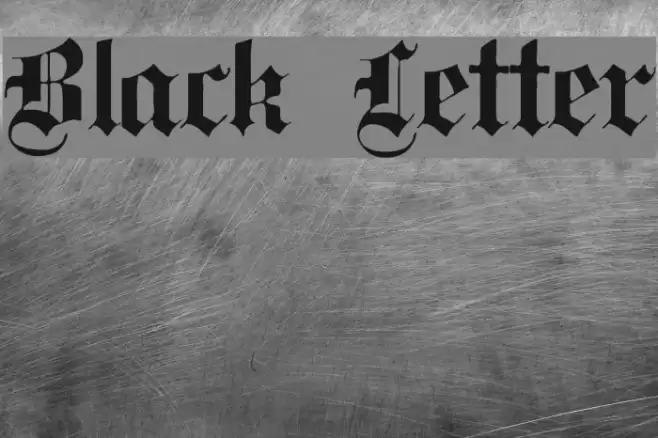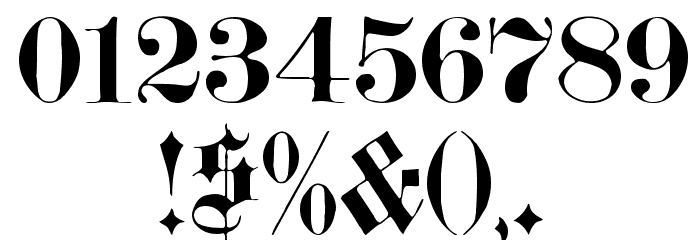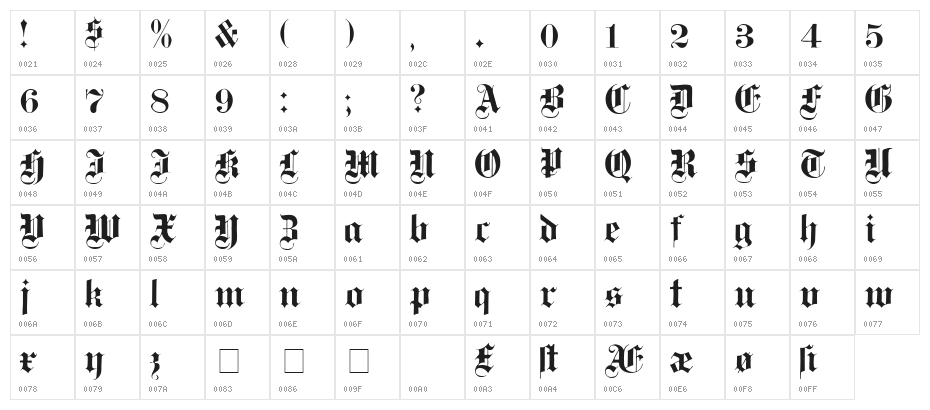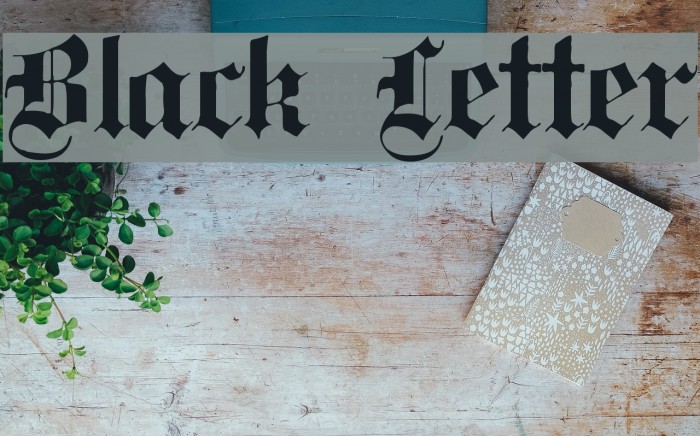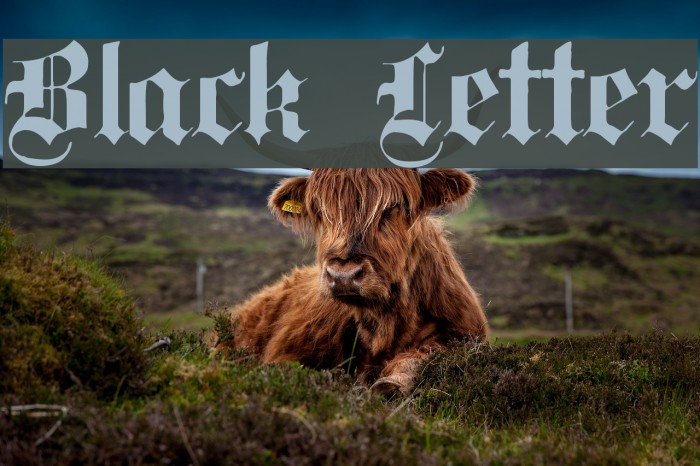
Black Letter Font
Black Letter Description
This font features a traditional blackletter style, characterized by its ornate and intricate design. The letters are bold and have a distinct medieval appearance, with sharp angles and elaborate curves. The uppercase letters are particularly decorative, while the lowercase letters maintain a consistent style with slightly less embellishment. The numbers and special characters follow the same aesthetic, providing a cohesive look. This font is reminiscent of historical manuscripts and is often associated with a gothic or old-world feel.
An ornate blackletter font with a medieval, gothic style from Uncategorized fonts.
- Proposed Projects: Ideal for projects requiring a historical or gothic theme, such as book covers, posters, or themed event invitations.
- Overall Style: Vintage
- Use Case: Logos, Headlines, Decorative text